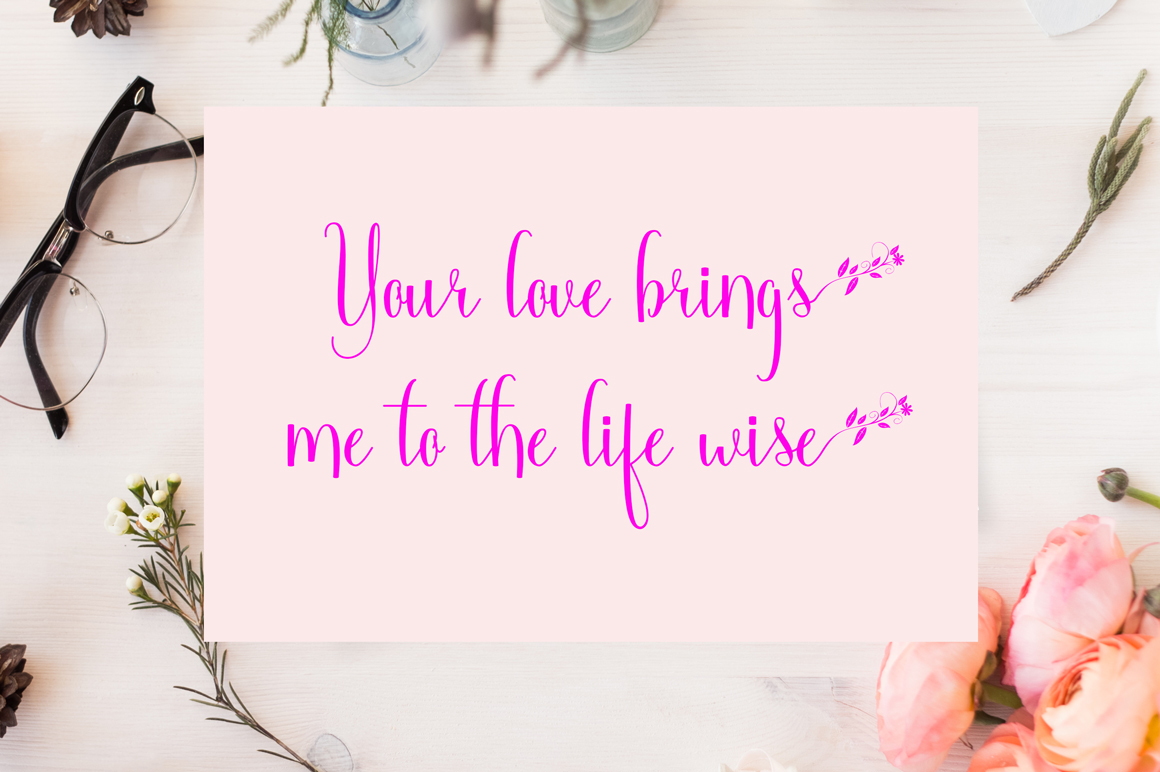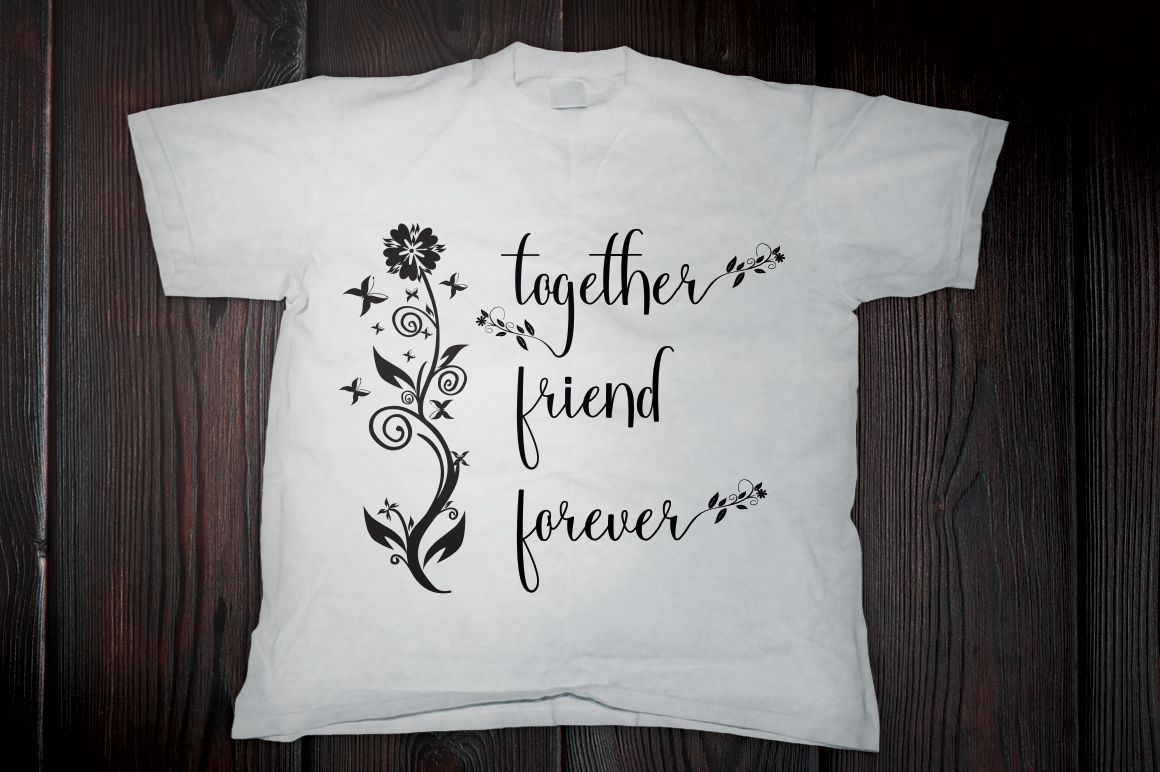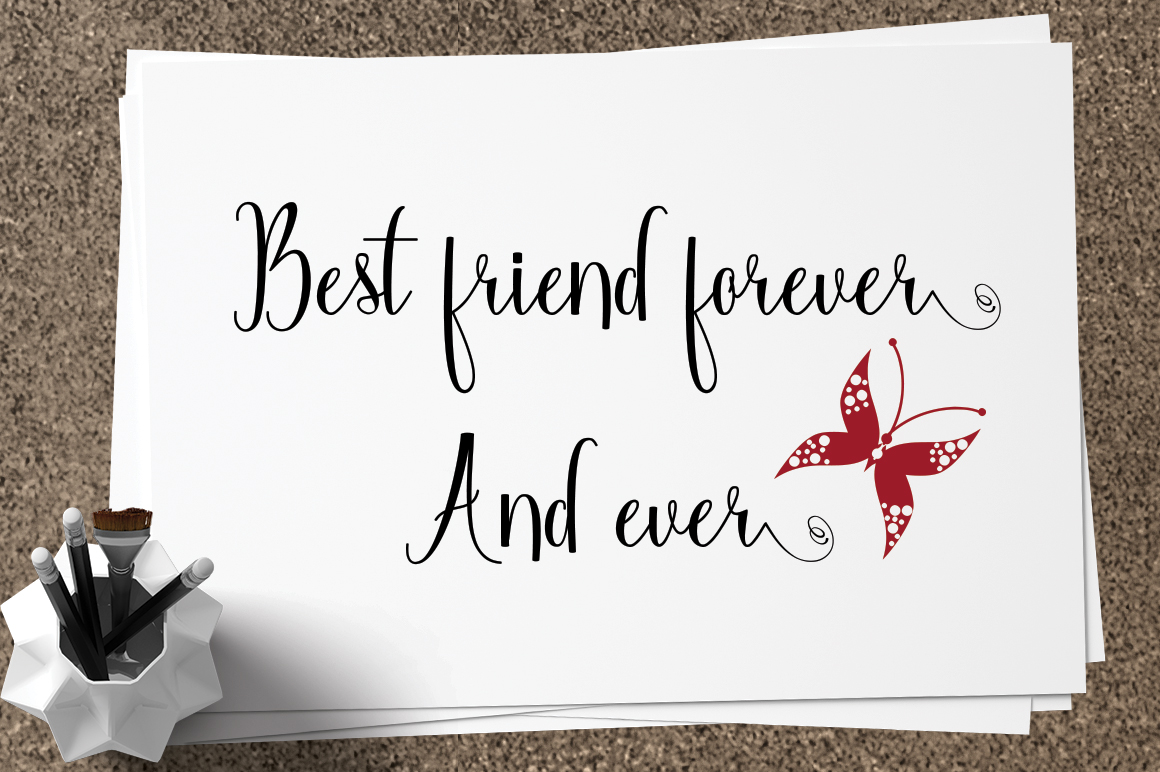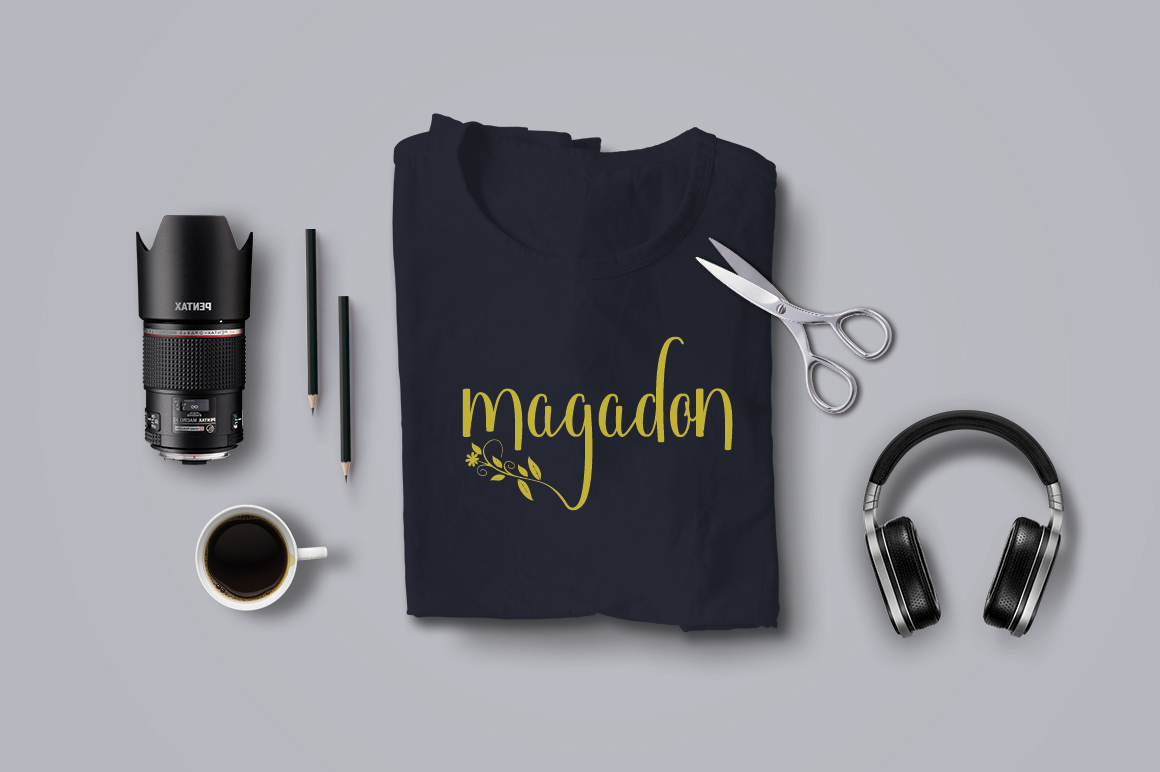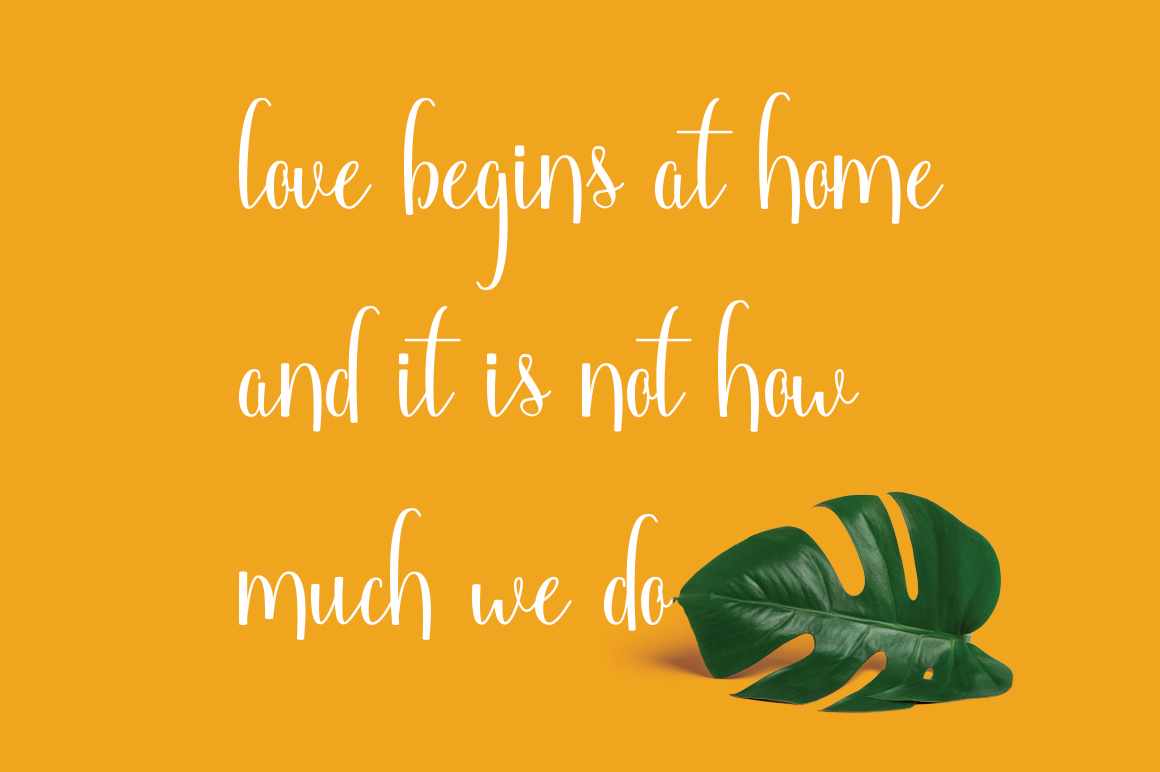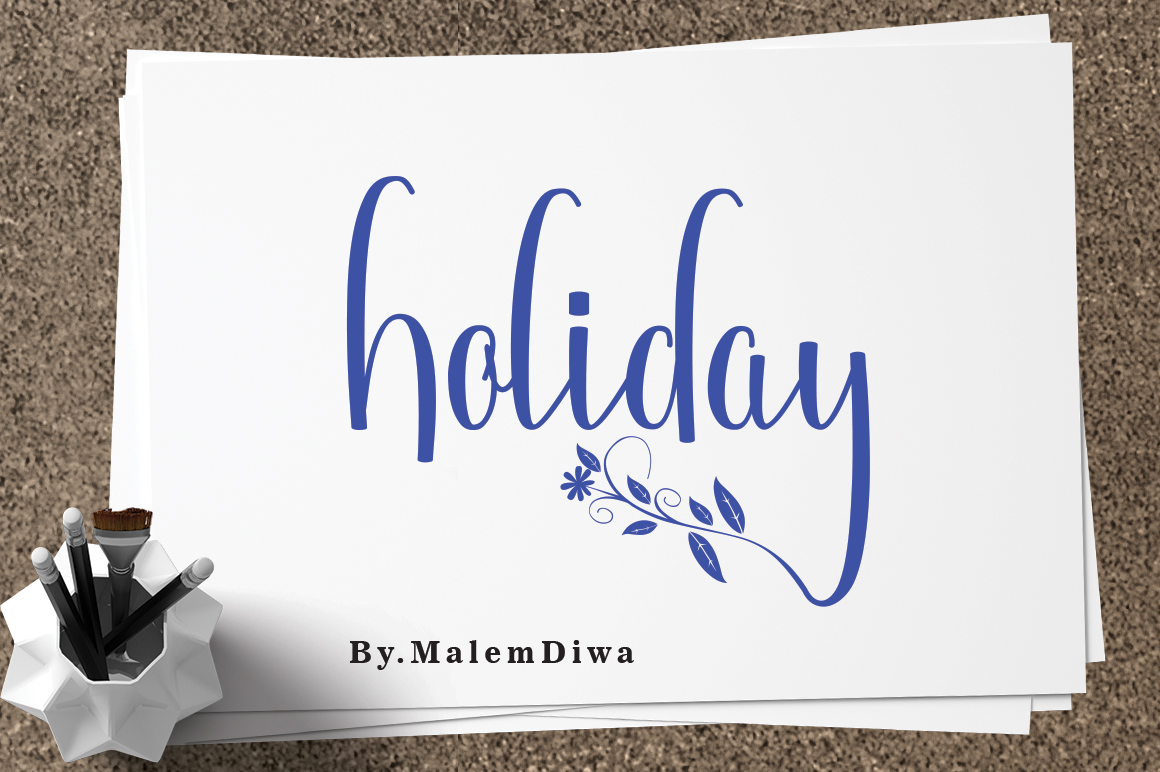
Introduction to Jacktifour Font
Have you ever stared at a blank page, desperate for the perfect design element to bring your creative project to life? For many of us, that moment of inspiration can be elusive – until we stumble upon a game-changing design resource. Today, we’re excited to introduce you to the captivating Jacktifour Font, a gorgeous and well-balanced handwritten font that will transport your designs to new heights.
With its calligraphy-inspired elegance, the Jacktifour Font adds a touch of sophistication and intrigue to any layout, making it the perfect addition to your design arsenal. Whether you’re working on a high-quality brochure, a free download for your website, or a creative project that requires a unique touch, this font is sure to impress.
As a valuable asset for designers, the Jacktifour Font offers the perfect blend of style and versatility, allowing you to customize your designs with ease. In this article, we’ll delve into the world of this stunning font, exploring its features, uses, and benefits – so you can unlock its full potential and elevate your design game.
Key Features of Jacktifour Font
- The Jacktifour Font is a high-quality design resource suitable for creative projects that require a unique touch.
- With a transparent background, the Jacktifour Font can be easily layered over any image or design element, providing maximum flexibility.
- This font boasts a high resolution of 300 DPI, ensuring that your designs look crisp and clear, even at larger sizes.
- The Jacktifour Font is available in 5 different font sizes, ranging from 12 to 72 points, catering to a wide range of design needs.
- What sets the Jacktifour Font apart is its unique blend of modern and vintage elements, making it perfect for projects that require a touch of nostalgia.
- The font’s clean and minimalist design also makes it an excellent choice for minimalist and modern design projects.
Honest Review: Jacktifour Font
- Transparency: The font has a transparent background, which is a great feature for designers who want to achieve a clean and minimalist look.
- Design versatility: The font is versatile and can be used for various creative projects, from logos to digital interfaces.
The Jacktifour Font is perfect for creating logos, social media graphics, and other visual content. It’s also great for use in presentations, reports, and other business documents.